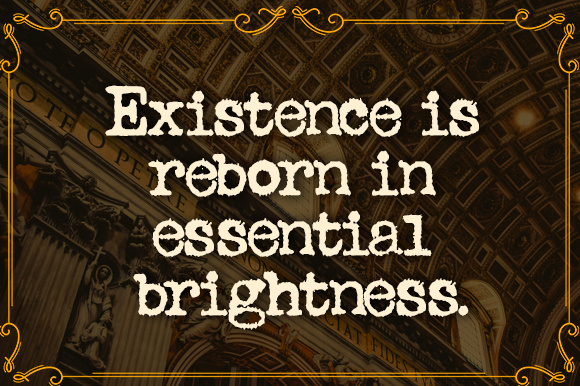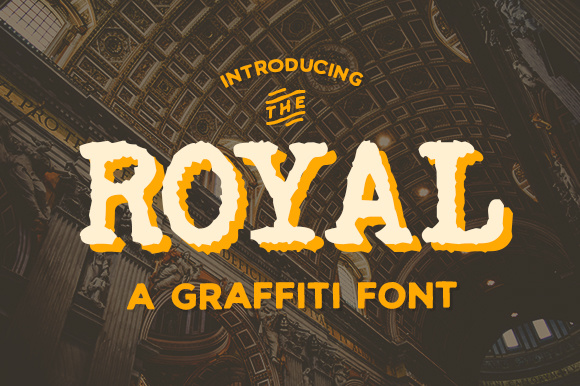
The Royal
About The Royal Font
The Royal is a cool and textured graffiti font from Johan Waldenstrom. This font is legible and great for body text with a high impact structure and design.